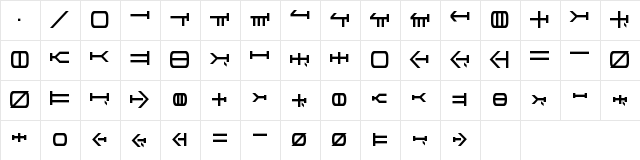
Graalen Regular
| Foundry | Neale Davidson |
| Designer | Neale Davidson |
Design Context for Graalen Typeface
Graalen is a composed and adaptable typeface that performs quietly and consistently across a wide range of design contexts.